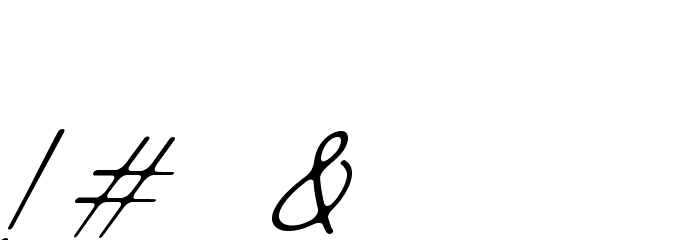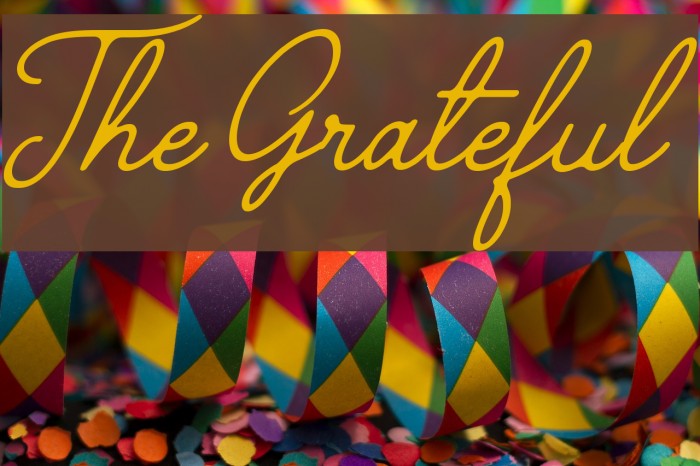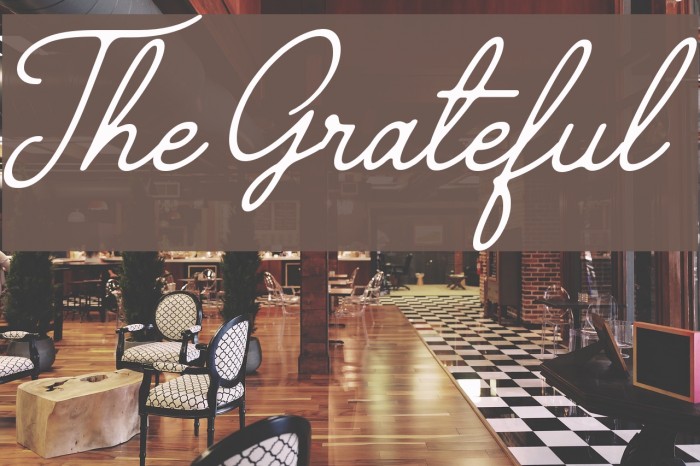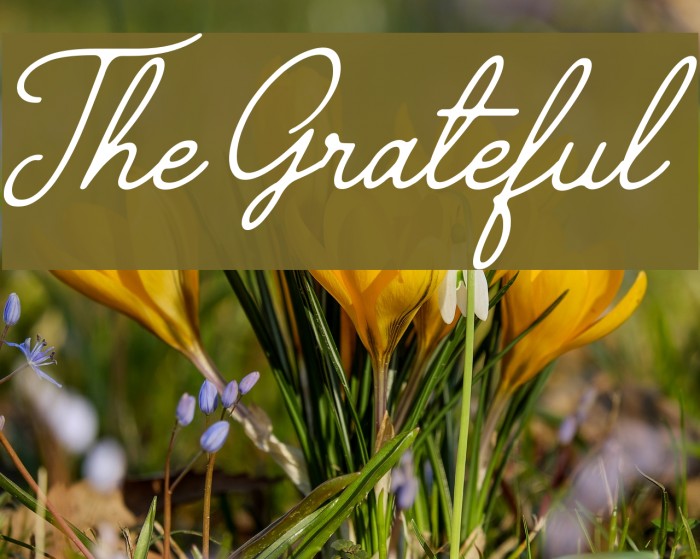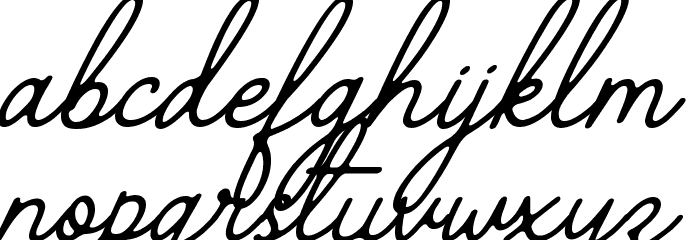
The Grateful 4 Font
This font features a flowing, cursive style with elegant loops and swashes, reminiscent of traditional calligraphy. The uppercase letters are slightly more ornate, with extended flourishes that add a touch of sophistication. The lowercase letters maintain a consistent flow, enhancing readability while preserving the decorative nature. The numerals and special characters are designed to match the overall script style, ensuring a cohesive look across all text. The font's delicate lines and graceful curves make it suitable for projects that require a personal or artistic touch.
A flowing, cursive script with elegant loops and swashes.
• Proposed Projects: Ideal for wedding invitations, greeting cards, personal branding, and artistic projects.
• Category: Script
• Contrast: Medium
• Overall Style: Classic
• Use Case: Logos, Invitations, Artistic projects